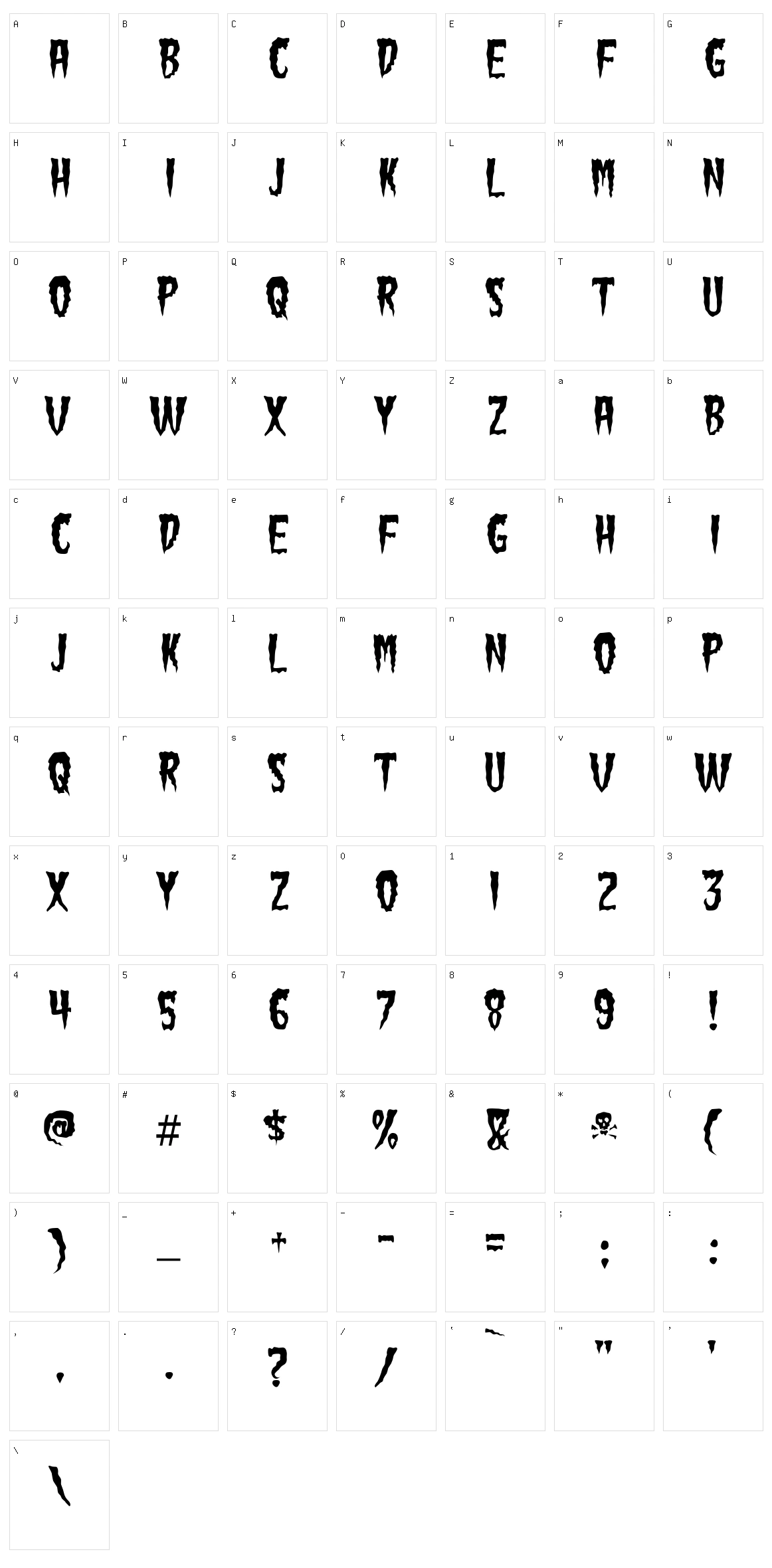
The free font Green Fuz is carefully designed by Typodermic Fonts, showcasing a thoughtful balance of creativity and usability and falls under the Horror font style. When you download the ZIP file, it contains only 21.78 KB of font files, making it lightweight and quick to download. Please review the license details below to understand permitted usage and distribution rights. If license information is not available, we recommend using this font for personal projects only or contacting the author directly for commercial usage permissions.